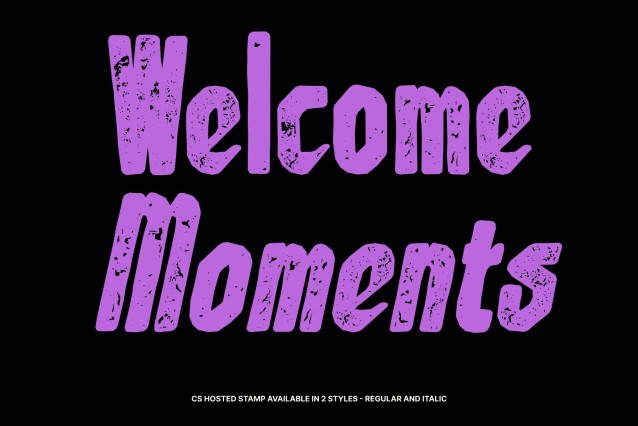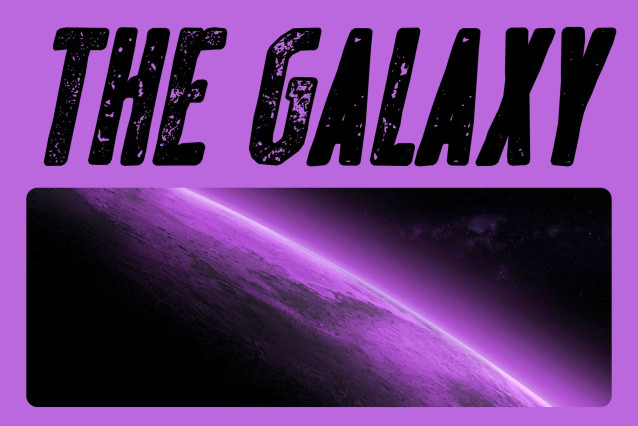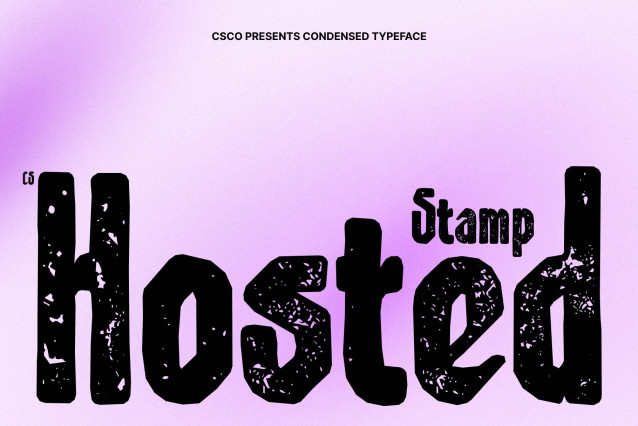
CS Hosted Stamp Font
CS Hosted Stamp – Bold Inktrap Sans Serif Font
Strong Masculine Character with Stamp Texture
This is a modern sans serif font featuring bold inktrap forms that project a strong and masculine character. The distinctive inktrap details soften sharp corners while maintaining a powerful presence. Enhanced with a stamp effect, the font gains subtle imperfections, rough edges, and an inked texture that introduces a rugged, vintage personality.
Dominant Presence for Impactful Design
With thick proportions and solid letterforms, this font delivers a confident and commanding appearance. The stamped texture adds depth and authenticity, making it ideal for product branding, bold headlines, posters, and impactful marketing materials that demand attention.
Versatile Applications with Retro Character
The combination of modern structure and distressed stamp finish makes this font highly versatile. It communicates strength, reliability, and craftsmanship, fitting perfectly across advertising, packaging, merchandise, and editorial design where a bold yet artistic look is needed.